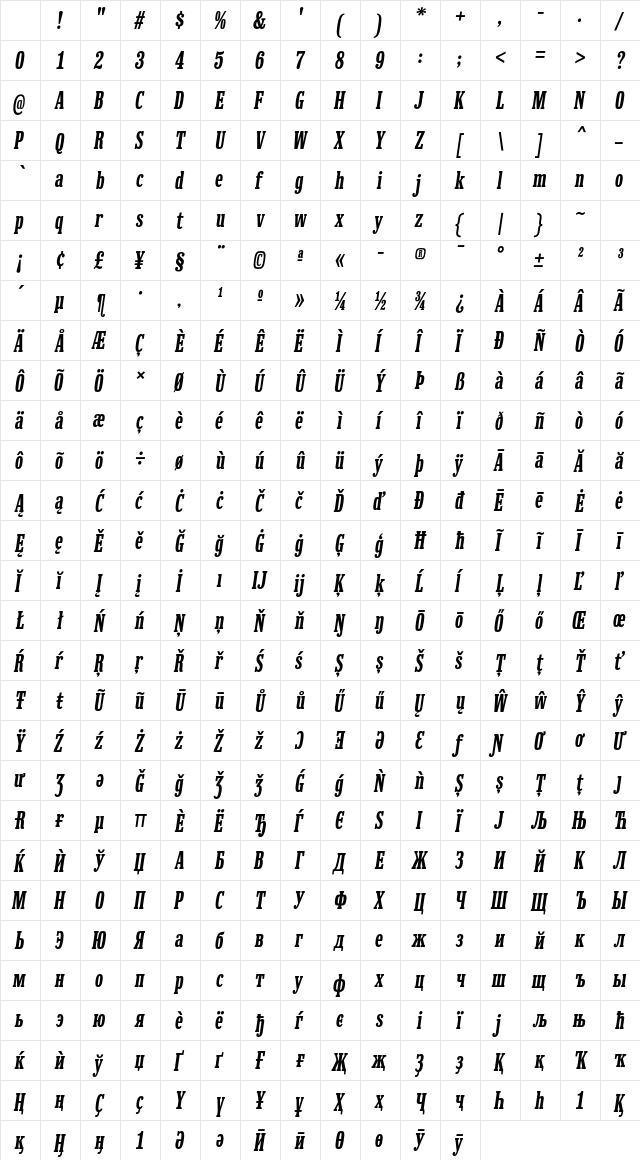
Complete Hackensack SemBd Italic glyph index. Displaying only characters natively supported by Hackensack SemBd Italic font.
Hackensack SemBd is a composed and adaptable typeface that performs quietly and consistently across a wide range of design contexts. The slanted form adds forward momentum and visual energy.
Pro Tip: Use Hackensack SemBd for emphasis, pull quotes, and subheadings where its slanted energy can add rhythm to the layout.